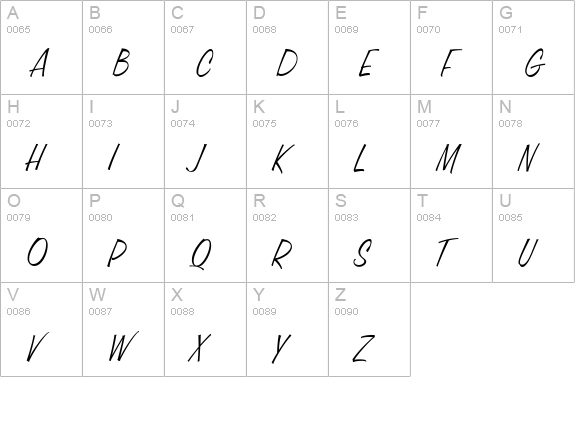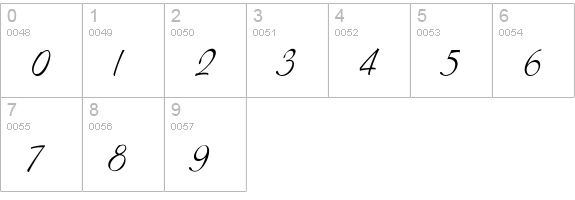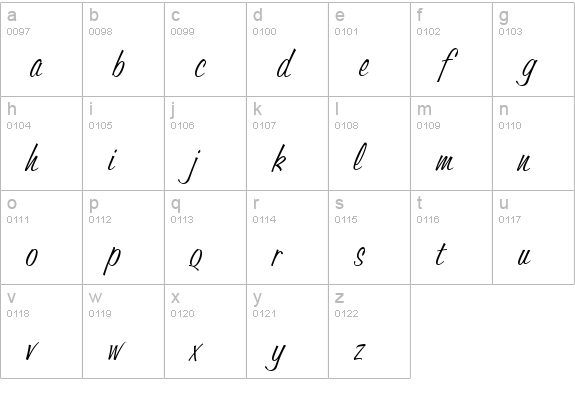
CgTrophyOblique Font Details
CgTrophyOblique font is a stylish and elegant typeface designed to add a touch of sophistication to any project. Its sleek and modern design makes it perfect for a wide range of applications, from branding to editorial design. The slanted oblique style of this font gives it a unique and dynamic look that is sure to catch the eye. Best of all, CgTrophyOblique font is completely free to download at FontsMarket.com. This means you can easily add this stunning font to your collection without having to spend a dime. Don't miss out on the opportunity to elevate your designs with this beautiful and versatile typeface. Download CgTrophyOblique font today and take your projects to the next level.